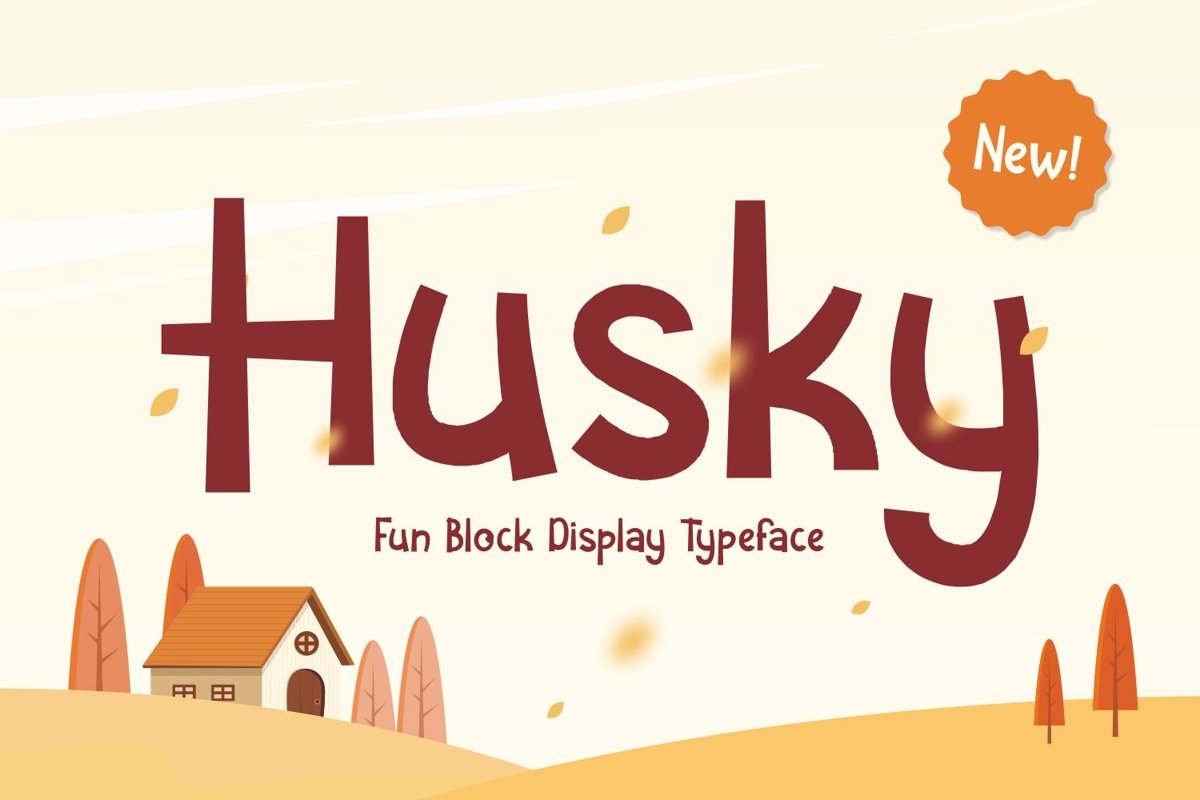
Husky is clean san serif display come with casual autumn themes. This is a very nice set craft font. It matches applies in some designs such as the logotype, brand, packaging, quotes, kids poster, shirt, children book, birthday invitation and more custom design. The features uppercase, lowercase, numeral, punctuation & symbol, multilingual support, PUA encoded (fully accessible without additional design software). What includes : • Husky.ttf • Husky.otf